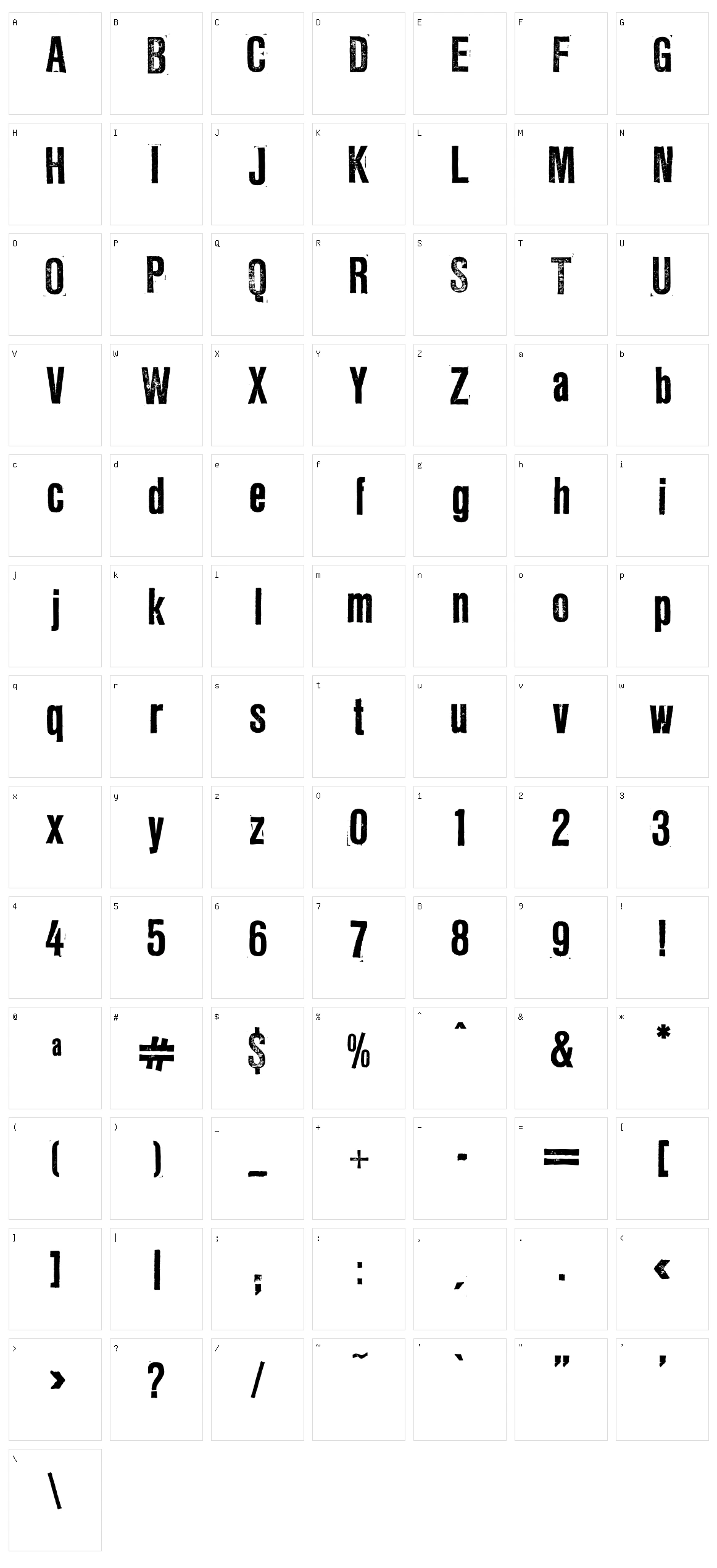
The free font LL Rubber Grotesque is carefully designed by Markus Schröppel, showcasing a thoughtful balance of creativity and usability and falls under the Eroded font style. When you download the ZIP file, it contains only 1638.16 KB of font files, making it lightweight and quick to download. Please review the license details below to understand permitted usage and distribution rights. If license information is not available, we recommend using this font for personal projects only or contacting the author directly for commercial usage permissions.